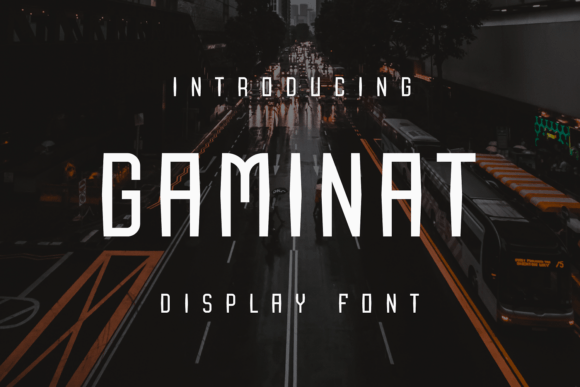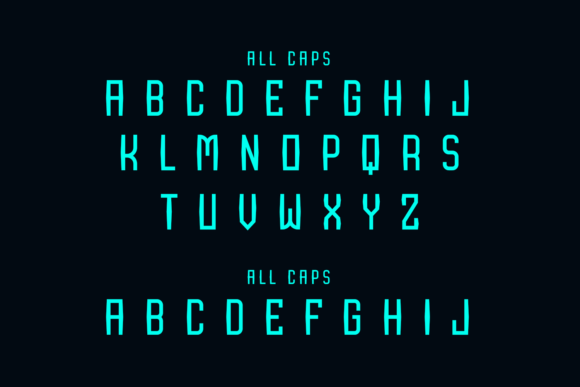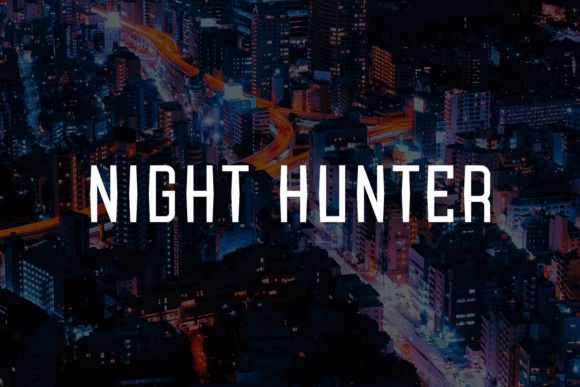
Discover the Perfect Distraction: Gaminat Font
As designers, we’ve all been there – staring at a blank canvas, struggling to come up with that perfect idea. But what if I told you that sometimes the best ideas come from taking a step back and letting inspiration strike? For me, it was a late-night browsing session that led me to the Gaminat Font, a cool and unique display font that would change the game for my next project.
The Gaminat Font is more than just a pretty face – it’s a versatile tool designed to elevate your creative projects. Whether you’re working on a branding campaign, a social media graphic, or a web design, this font is sure to bring an extra layer of sophistication and style to your work. Its value lies in its ability to add a touch of personality to your designs, setting you apart from the crowd and making your work truly unforgettable.
Gaminat Font Key Features
- Font Family: Gaminat Font is a sans-serif font family designed for gaming and entertainment purposes.
- Character Set: The font family includes a comprehensive set of characters, including Latin, Cyrillic, and Greek alphabets, as well as various symbols and glyphs.
- Unique Characteristics: Gaminat Font features a bold, futuristic design with a high x-height, making it highly legible even at small font sizes.
Gaminat Font Review
I recently had the chance to work with the Gaminat font, and I must say, it’s a mixed bag. On the one hand, here are some things that really work well:
- ✨ The Gaminat font has a unique, edgy feel to it that can really add some personality to your designs.
- ✨ It’s highly customizable, with a wide range of weights and styles to choose from.
- ✨ The font is highly legible, even at small sizes, making it a great choice for body text.
- ⚠️ The font can be a bit too bold and overbearing at times, making it difficult to use in more subtle designs.
- ⚠️ Some of the weights and styles can feel a bit inconsistent, which can make it harder to achieve a cohesive look.
- ⚠️ The font may not be suitable for all types of projects, particularly those that require a more traditional or formal look.
Overall, I would say that the Gaminat font is a solid choice for designers who want to add some edge to their work. However, it’s not without its limitations, and it’s up to you to decide whether it’s the right fit for your project.
Tip: Use Gaminat Font for headings and titles to add a touch of gaming-inspired style to your design.
Tip: Use Gaminat Font in conjunction with gaming-inspired graphics and textures to create a cohesive design.
Tip: Use Gaminat Font to add a touch of gaming-inspired style to your presentations and documents.
The Gaminat Font is perfect for:
- Gaming-related designs, such as game logos and packaging.
- Technology-related designs, such as software and app icons.
- Any design that requires a bold and futuristic feel.
Alternatives to Gaminat Font
Monserrat Font is a sans-serif typeface designed by Julieta Ulanovsky. It’s a geometric sans-serif font that’s perfect for modern designs, especially for digital products and urban environments. Montserrat Font is more geometric and modern compared to Gaminat Font, which has a more rounded and playful feel.
Open Sans Font is a modern sans-serif typeface designed by Steve Matteson. It’s highly legible and works well for body text, especially in digital products and applications. Open Sans Font is more legible and clean compared to Gaminat Font, which has a more playful and casual feel.